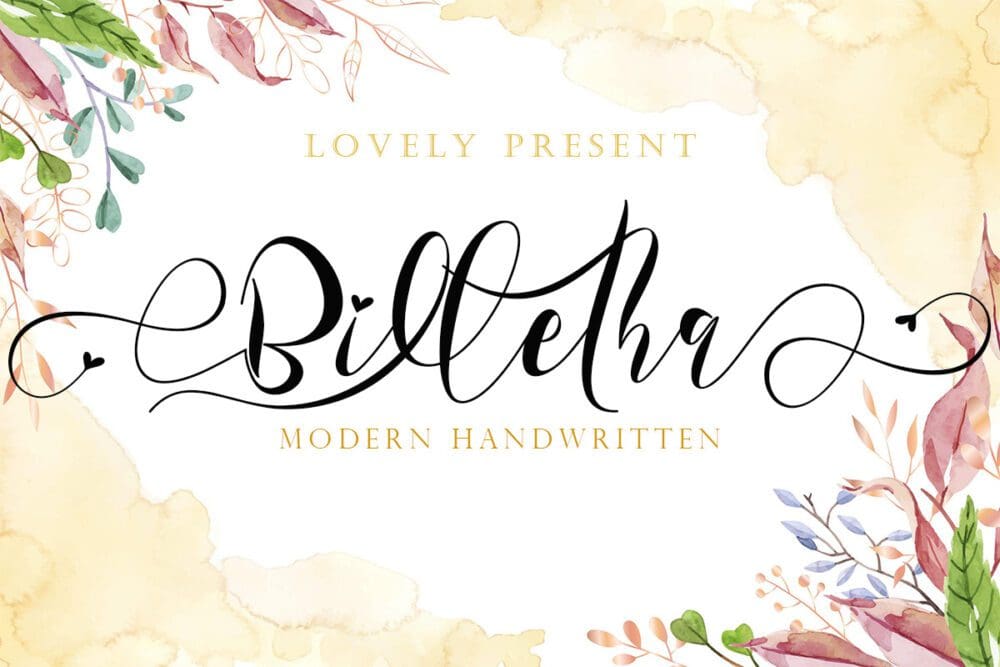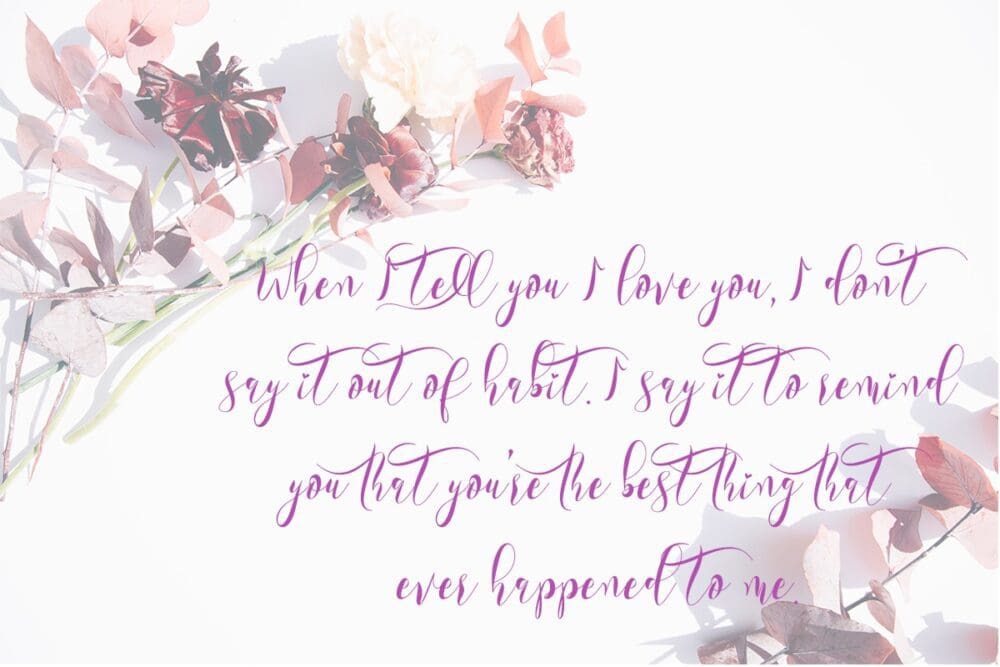
Billetha Font
This font is called Billetha. Billetha is a very elegant, refined, beautiful, and high-quality font. This font is made with great love. This font can make your work more beautiful and elegant.